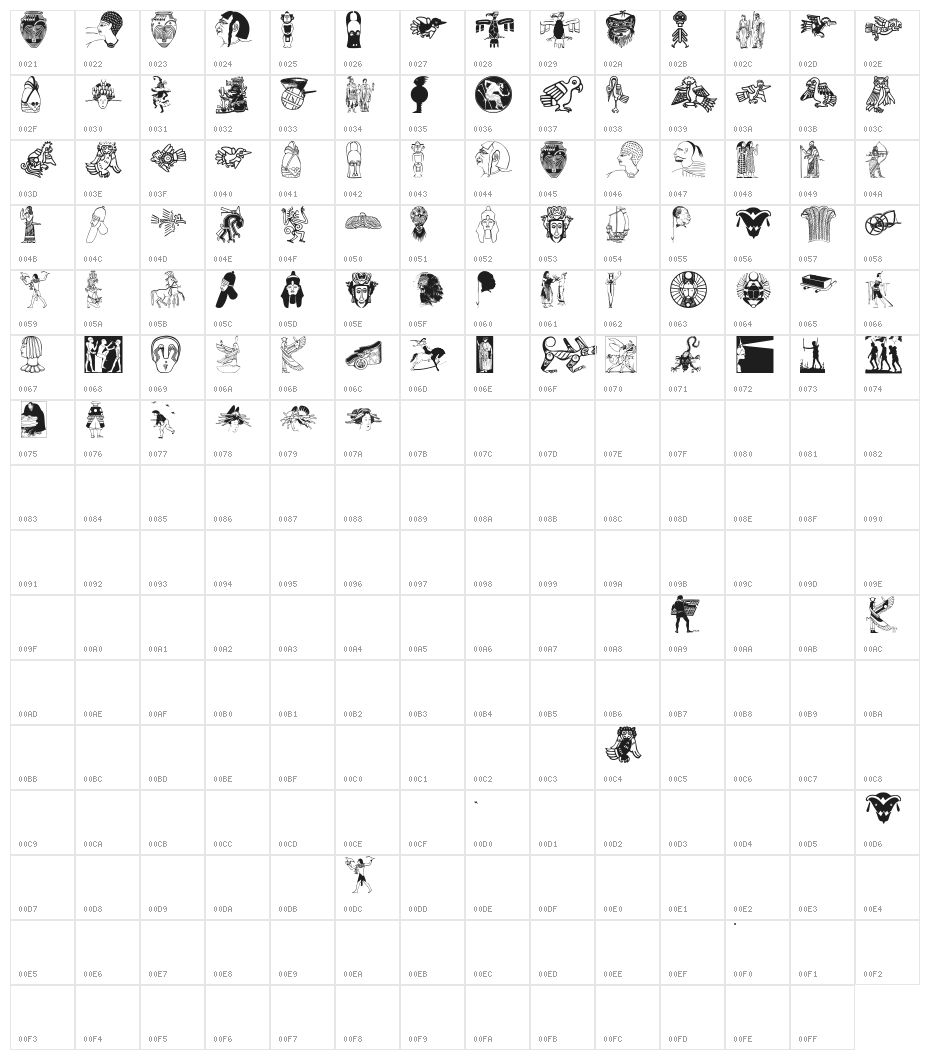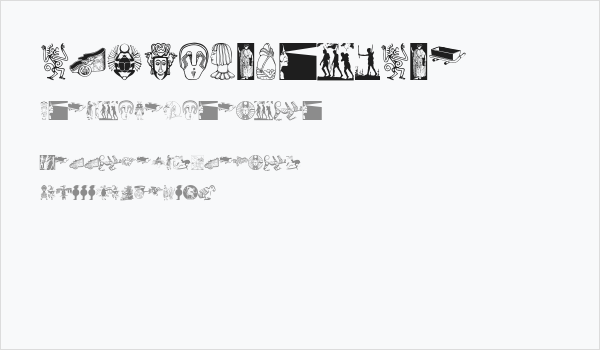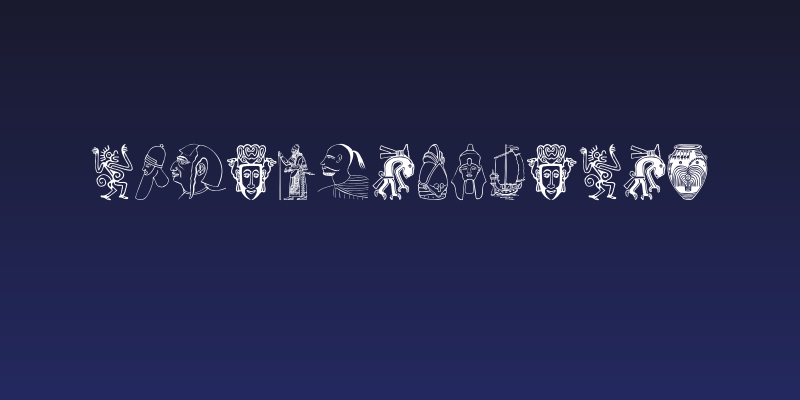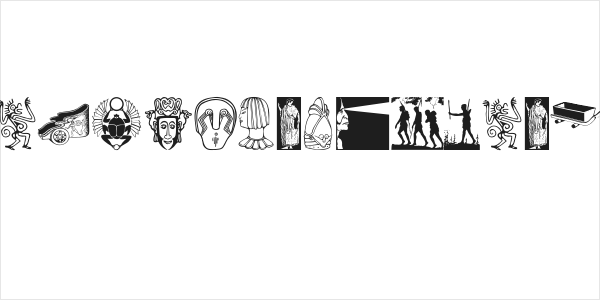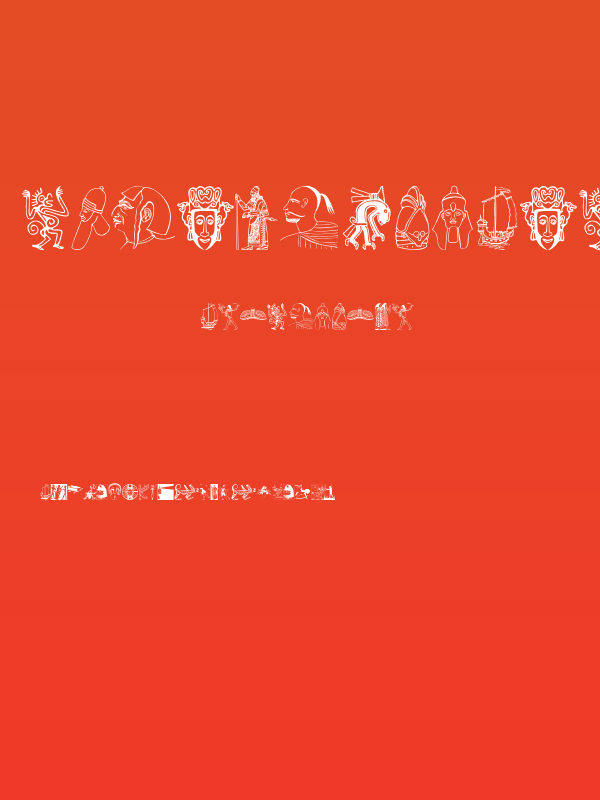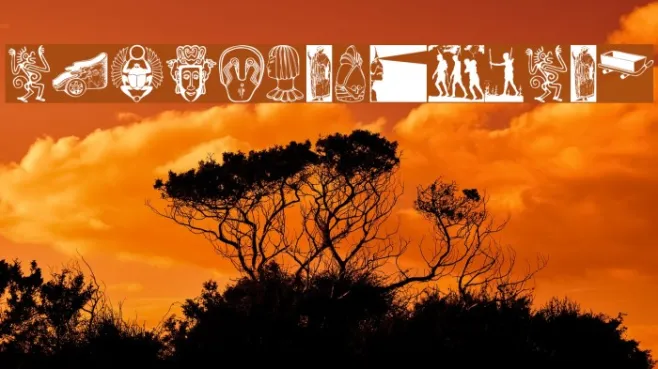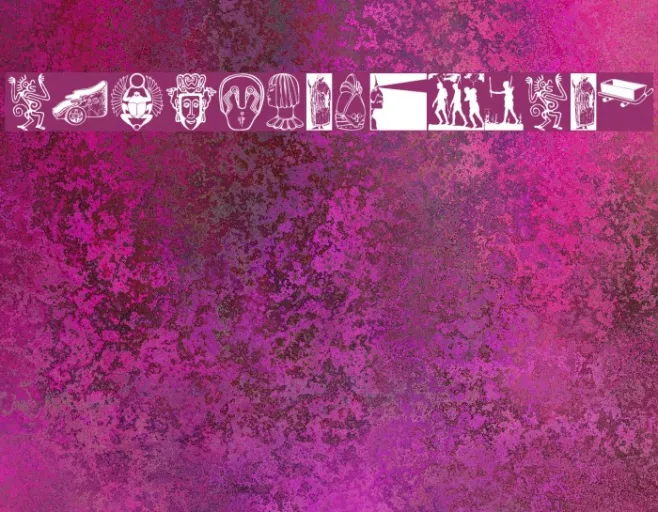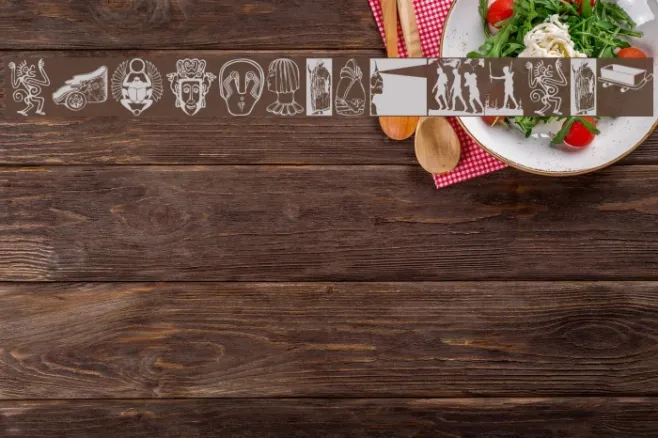
OldSignArtsOne Font
OldSignArtsOne Description
A highly decorative display font composed of intricate illustrations inspired by ancient and historical art, featuring figures, artifacts, and motifs from various cultures. Each character is represented by a unique pictorial glyph rather than a traditional letterform.
| Overall Style | Decorative, Historical, Artistic |
| Use Case | Display, Thematic headlines, Visual storytelling |
| Proposed Projects | Posters, educational materials, themed event graphics, museum signage, creative branding, book covers. |